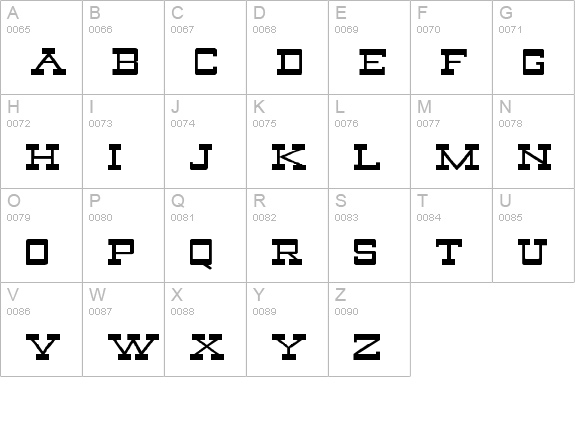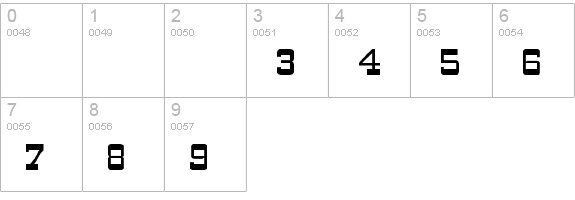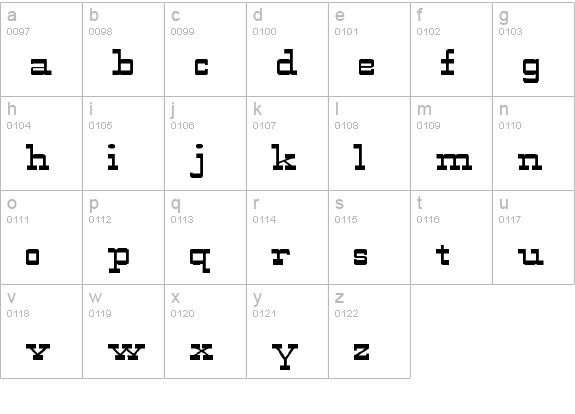
WildWest-Normal Ex Font Details
WildWest-Normal Ex is the standard, neutral variant in the WildWest typeface family \xE2\x80\x94 well suited to general body text, paragraphs, and standard typographic work.
Introducing WildWest-Normal Ex, a font that perfectly captures the essence of the Wild West era with its rugged and bold design. This font is a tribute to the cowboys, outlaws, and pioneers who roamed the vast plains and untamed frontiers, embodying the spirit of adventure and freedom. With its unique combination of vintage charm and contemporary style, WildWest-Normal Ex stands out in any design project. Its strong and sturdy letterforms evoke the rugged landscapes and rough-hewn buildings of the Old West, while its clean lines and balanced proportions give it a modern edge. This versatile font is perfect for a wide range of applications, from logos and branding to posters and signage. Its bold presence makes a statement and commands attention, ensuring that your message will be heard loud and clear. And the best part? WildWest-Normal Ex is absolutely free. That's right, you can download this amazing font for free at FontsMarket.com. We believe that creativity should be accessible to all, and that's why we're offering this font as a gift to designers, artists, and enthusiasts alike. Whether you're a seasoned professional or just starting out, WildWest-Normal Ex is here to help you bring your vision to life. So go ahead, download WildWest-Normal Ex today and unleash your inner cowboy. Let your designs ride off into the sunset with this captivating and dynamic font. Embrace the spirit of the Wild West and create something truly extraordinary. FontsMarket.com is waiting for you to take advantage of this incredible offer. Don't miss out on the opportunity to add WildWest-Normal Ex to your font collection. It's time to saddle up and embark on a design adventure like no other.